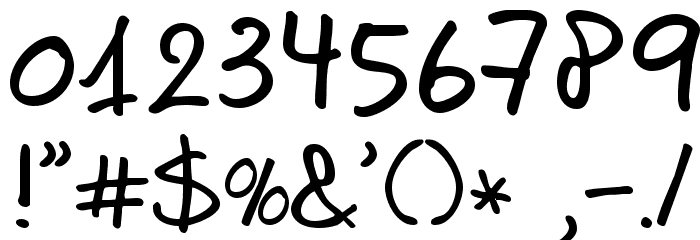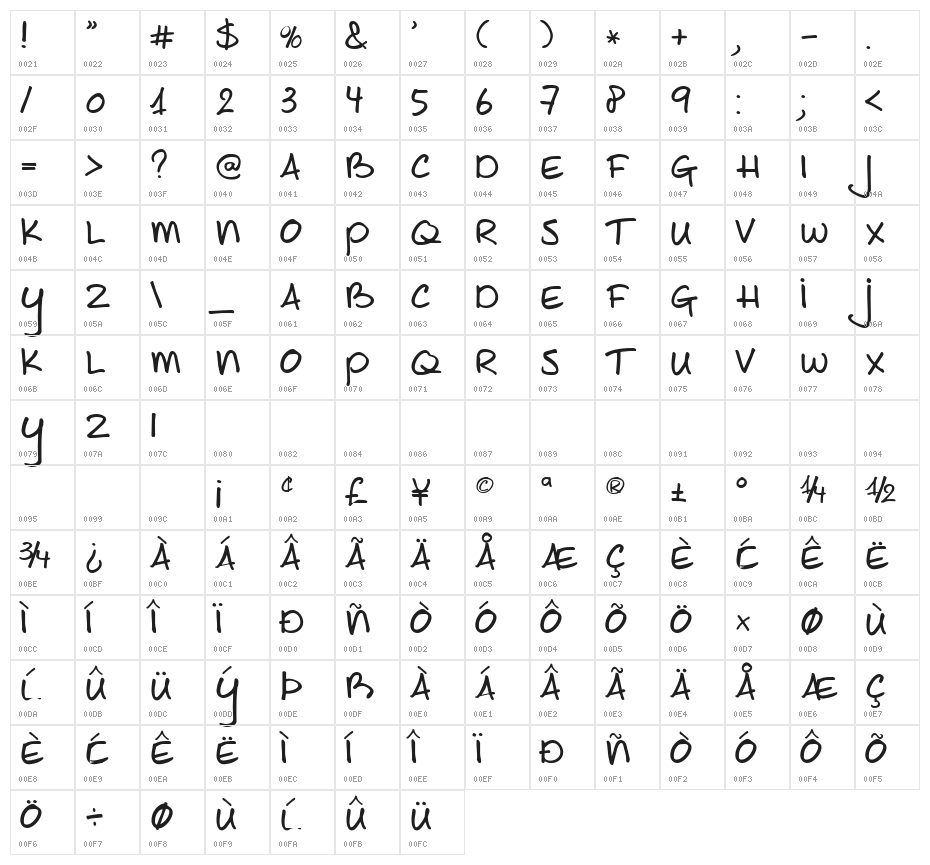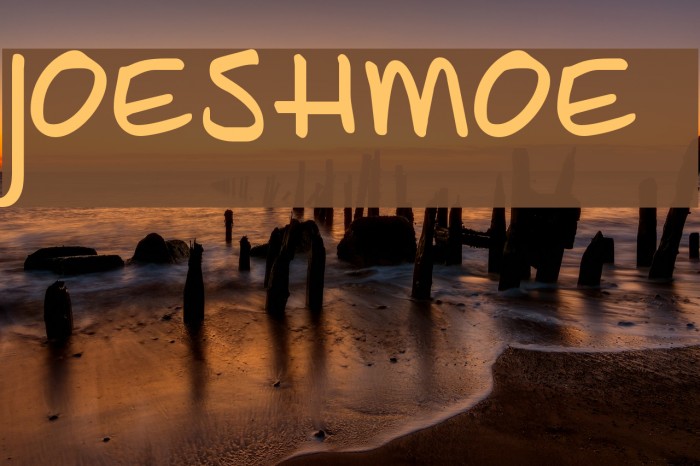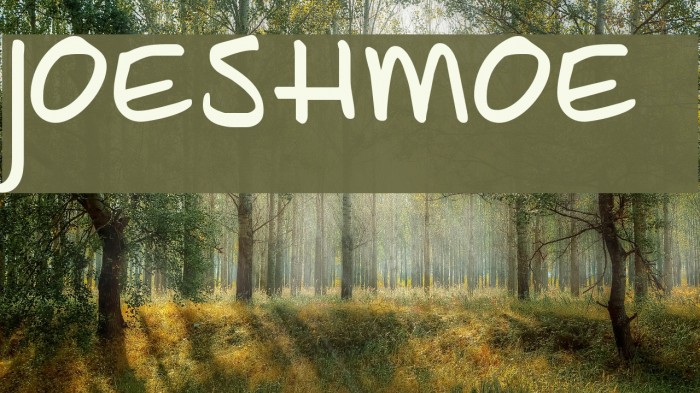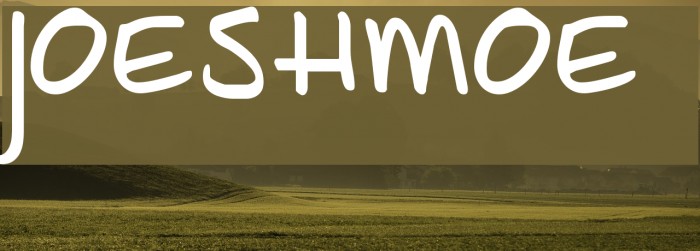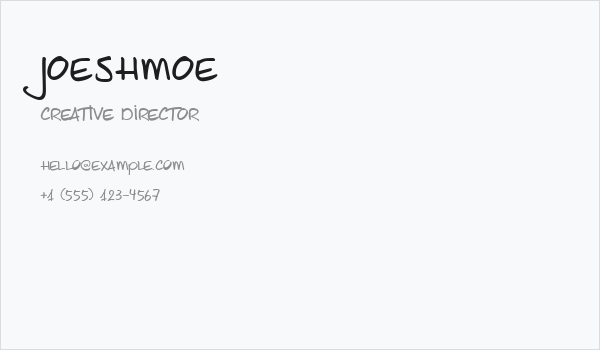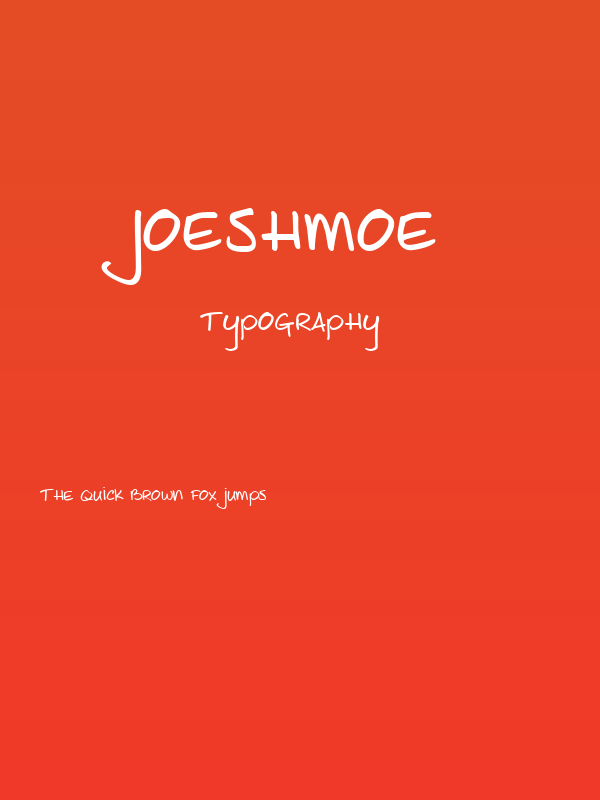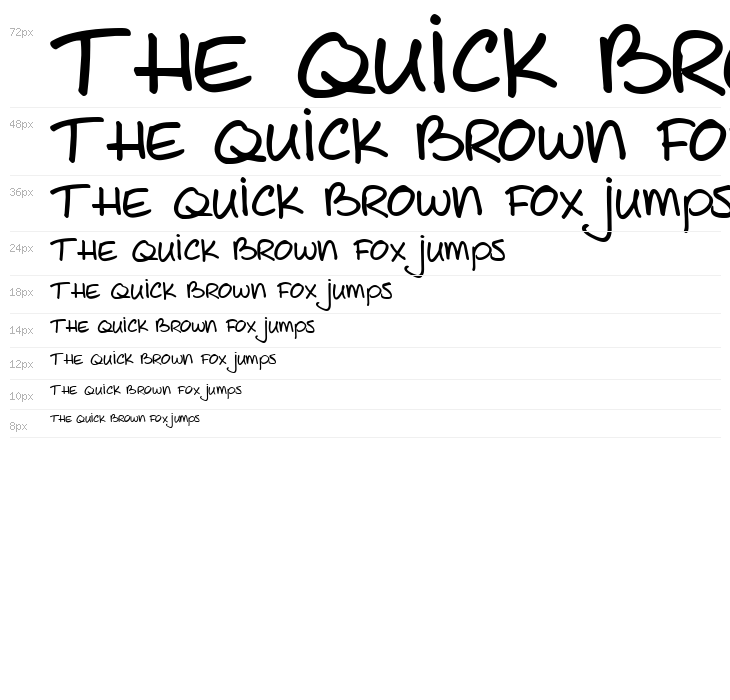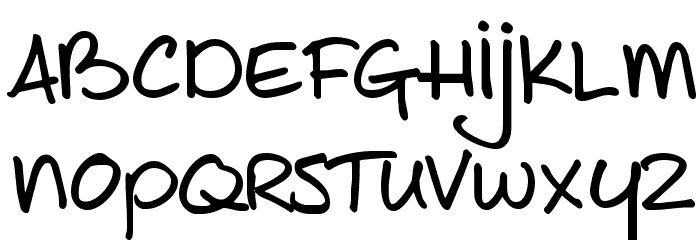
JoeShmoe Font
JoeShmoe Description
This font exudes a playful and casual handwritten style, characterized by its smooth, flowing curves and slightly irregular strokes that mimic natural handwriting. The letters are bold and rounded, giving a friendly and approachable appearance. The uppercase and lowercase letters maintain a consistent style, with a slight slant that adds to the informal feel. The numerals and special characters are equally expressive, maintaining the same handwritten charm. This font is perfect for projects that require a personal touch, such as greeting cards, invitations, or playful branding.
| Proposed Projects | Ideal for greeting cards, invitations, playful branding, and personal projects. |